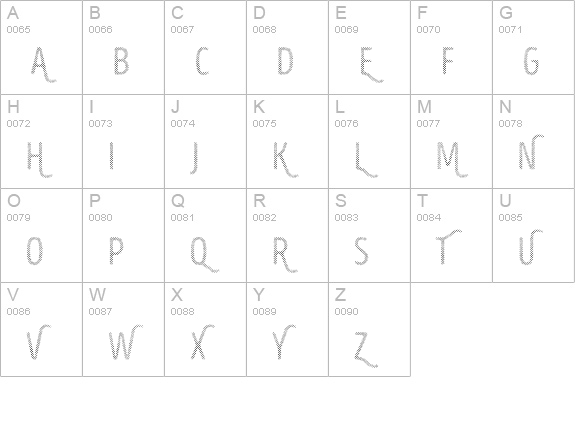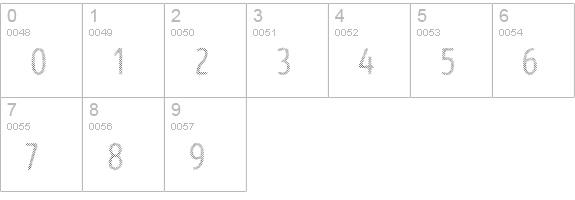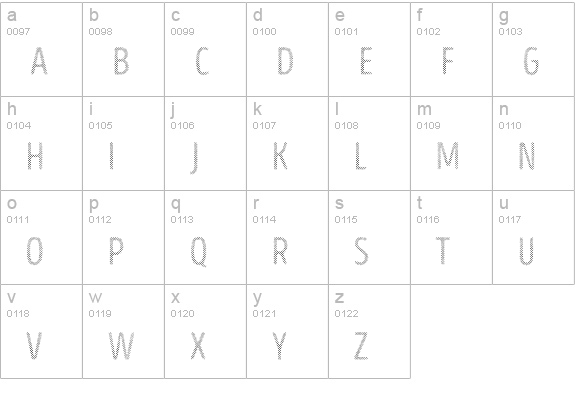
Intro Head B UC H1 Font Details
The Intro Head B UC H1 font is a striking and modern display typeface that exudes sophistication and elegance. This versatile font is perfect for creating attention-grabbing headlines, titles, and logos that demand to be noticed. With its bold and unique design, Intro Head B UC H1 adds a touch of refinement to any design project. And the best part? This font is available for free download at FontsMarket.com! Whether you're a graphic designer, a web developer, or a creative enthusiast, you can easily access this premium font at no cost. Elevate your designs with the distinctive style and visual impact of Intro Head B UC H1 font today.